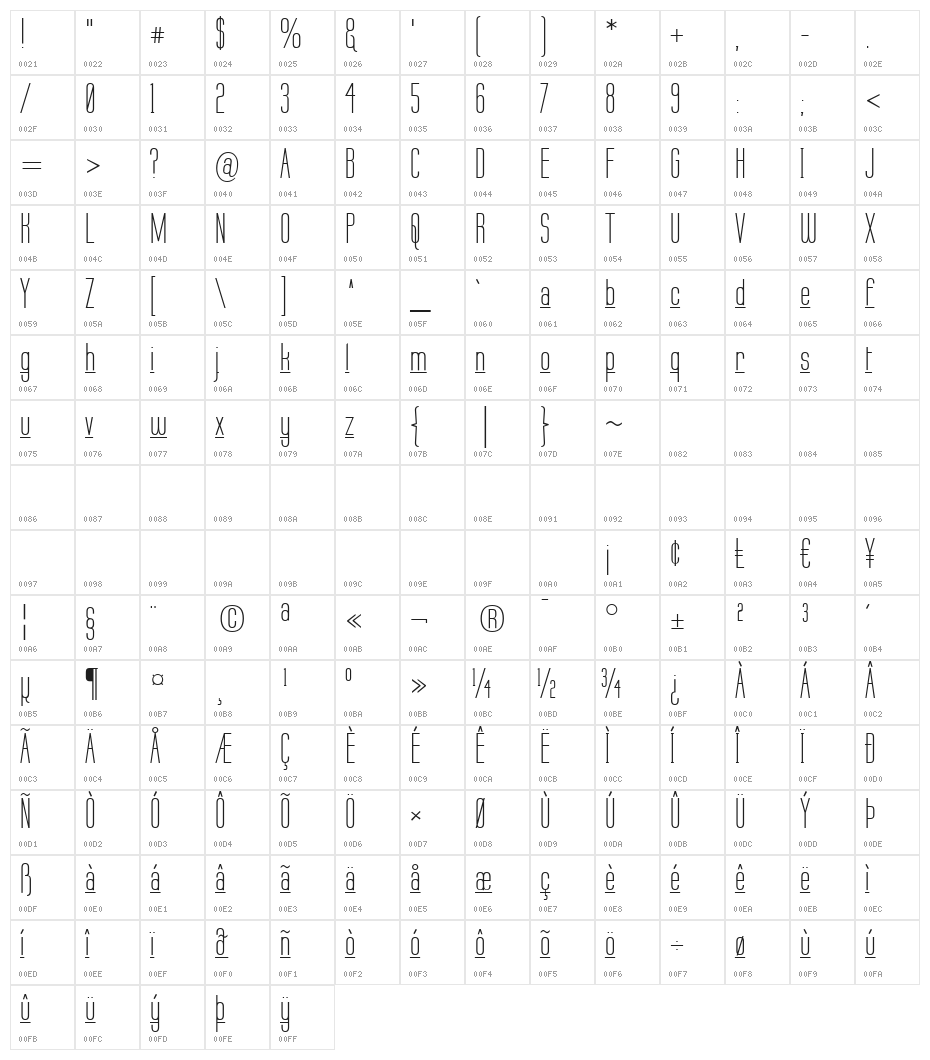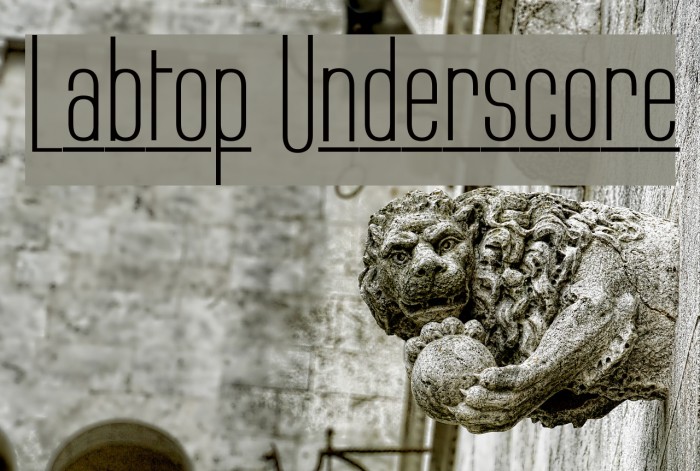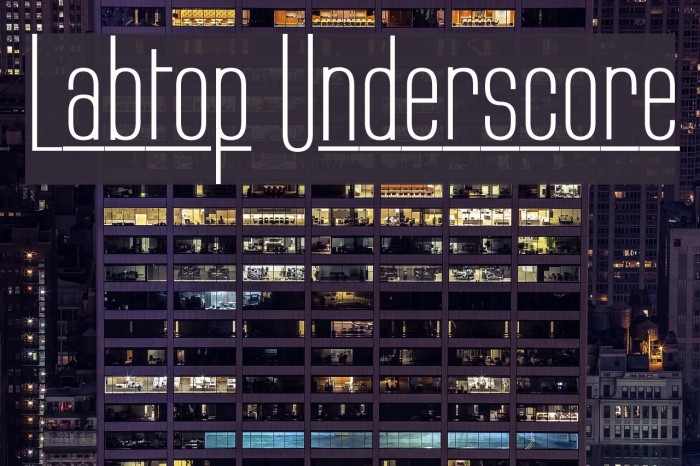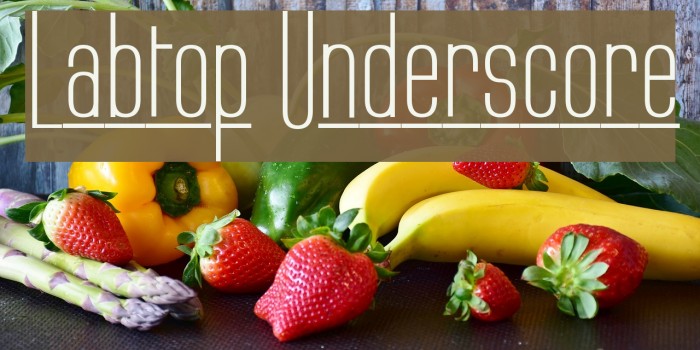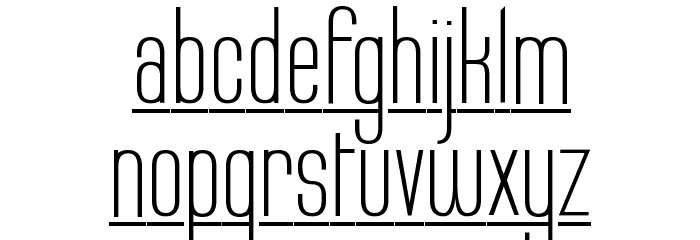
Labtop Underscore Font
Labtop Underscore Description
This font features a tall, narrow design with clean, straight lines and a modern aesthetic. The uppercase letters are particularly elongated, giving a sense of elegance and sophistication. The lowercase letters maintain a consistent height, complementing the uppercase with a balanced look. Numbers and special characters follow the same sleek design, ensuring uniformity across all elements. The font's thin strokes and minimalistic style make it ideal for contemporary projects where clarity and style are paramount.
| Proposed Projects | Ideal for fashion magazines, modern branding, minimalist posters, and high-end product packaging. |